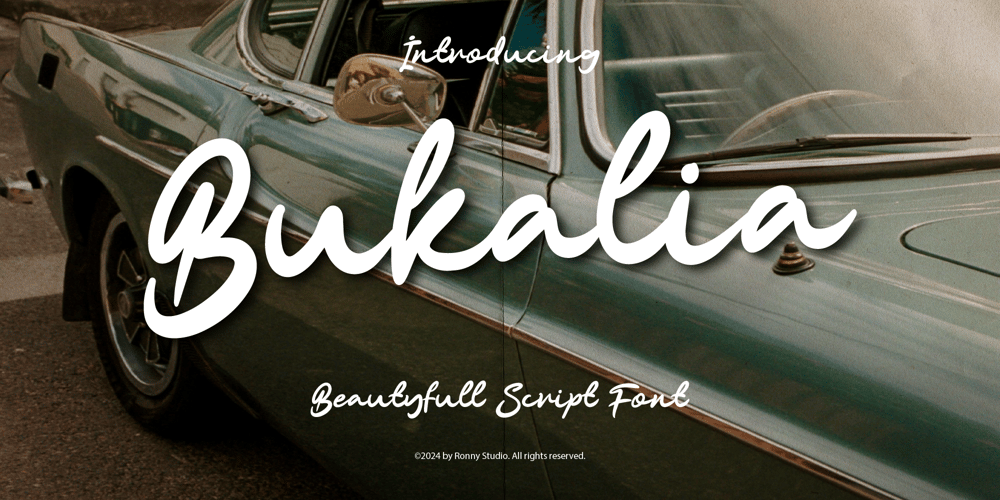
Bukalia Font Family was designed by Rony Rizki Jaya and published by Ronny Studio. Bukalia contains 1 styles and family package options. Bukalia Font is created with a natural modern script with a fresh modern script that provides a Beautiful stylish script that is guaranteed to add interesting appeal to your designs. This font is perfect for your logo, brand image, quotes, product packaging, movie titles & social media posts.